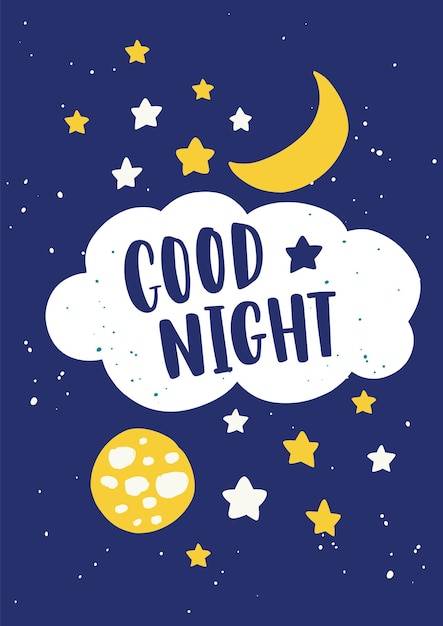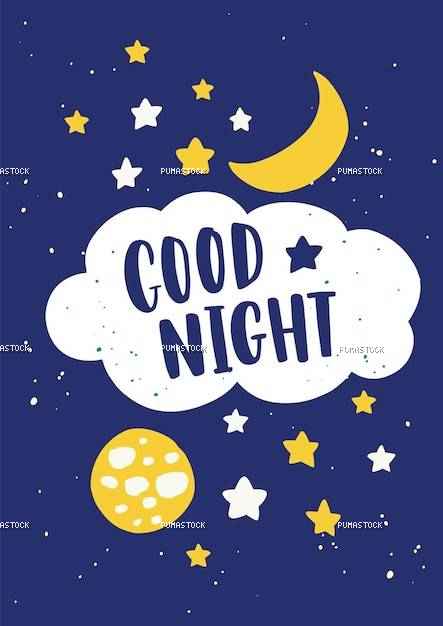
Beautiful poster template for baby's room with crescent, moon in sky, stars, clouds and good night lettering handwritten with elegant calligraphic font. flat cartoon colorful vector illustration